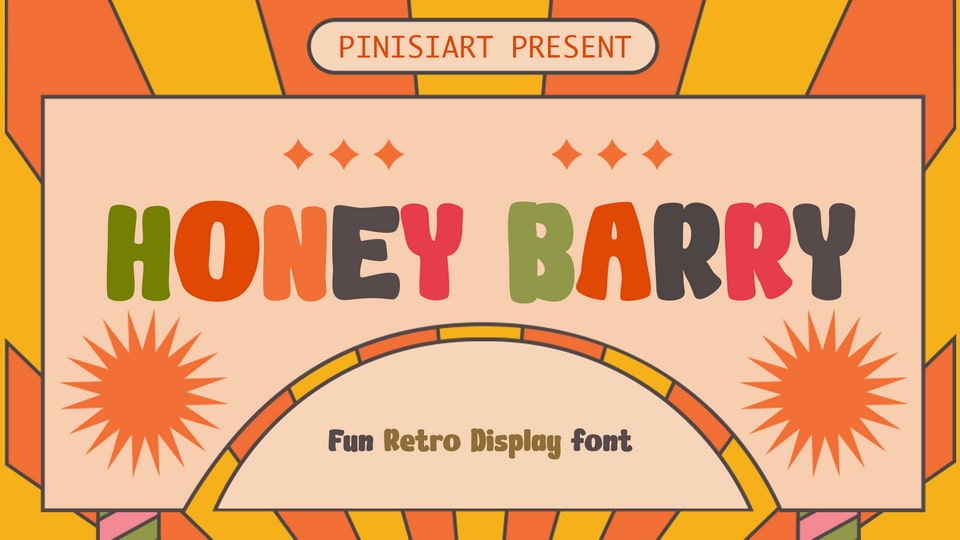
Download Honey Barry font, a fun retro display typeface. Retro will always have a place in our hearts. The vibrant yet soft color put our minds in a strange state that always brings a smile to our faces.